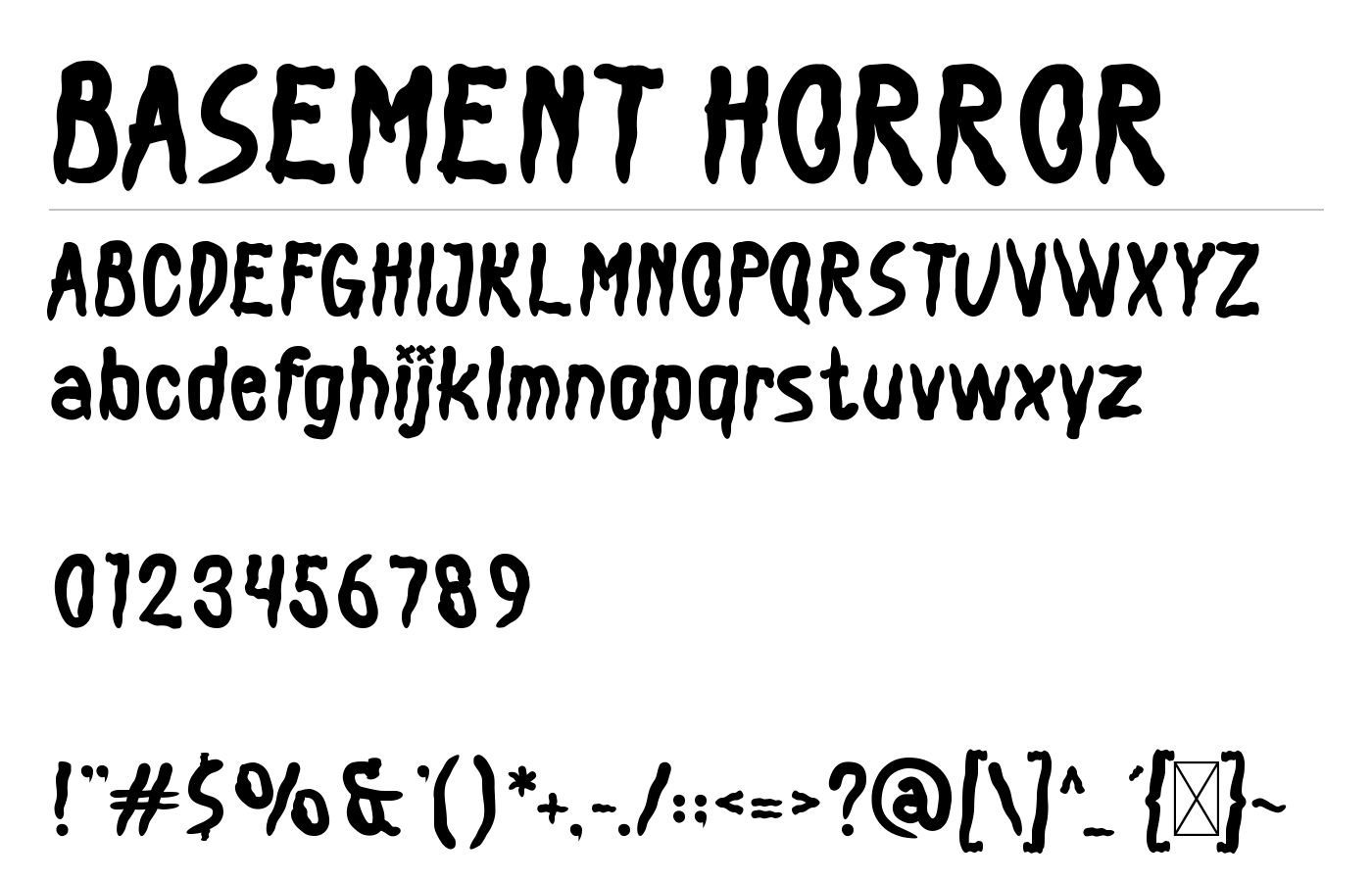
Basement Horror is a bold, condensed sans serif font with a spooky, dripping effect that gives it a creepy, unsettling vibe. Its uneven, hand-drawn letterforms with irregular edges make it perfect for Halloween-themed designs, horror movie posters, or anything needing a playful yet eerie touch. This font works best for eye-catching headlines and display use where a striking, spooky atmosphere is desired.
BASEMENT HORROR Font
About BASEMENT HORROR Font
| Font family | BASEMENT HORROR Font |
| Designer | Maikohatta |